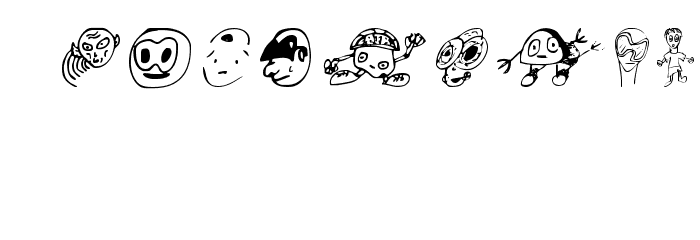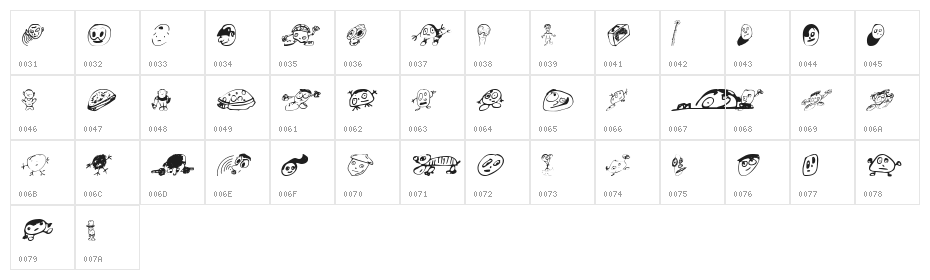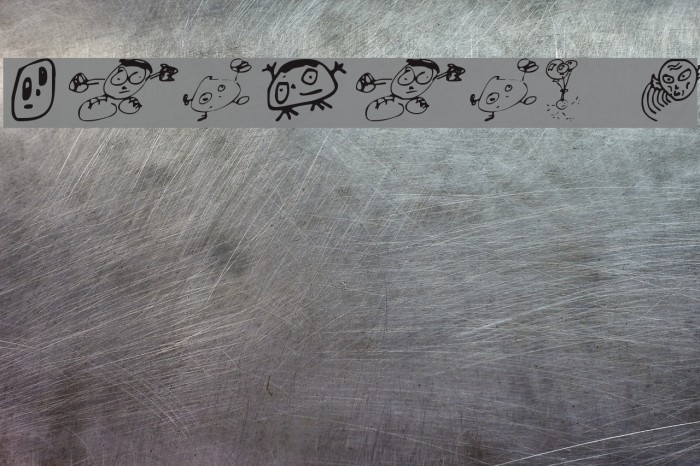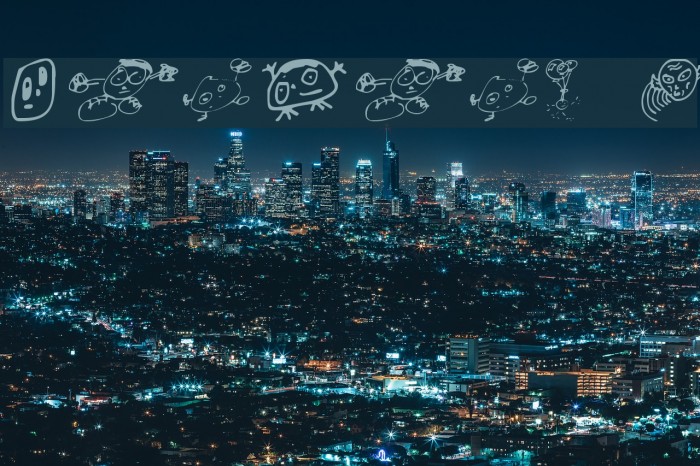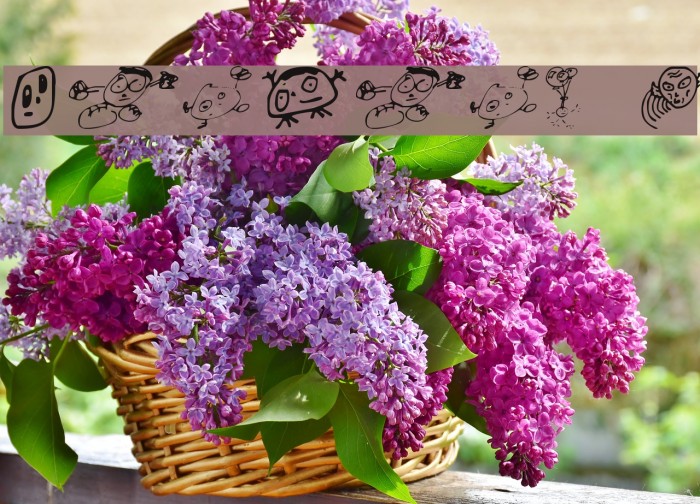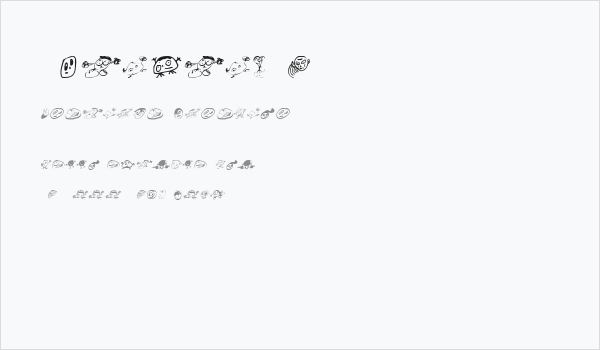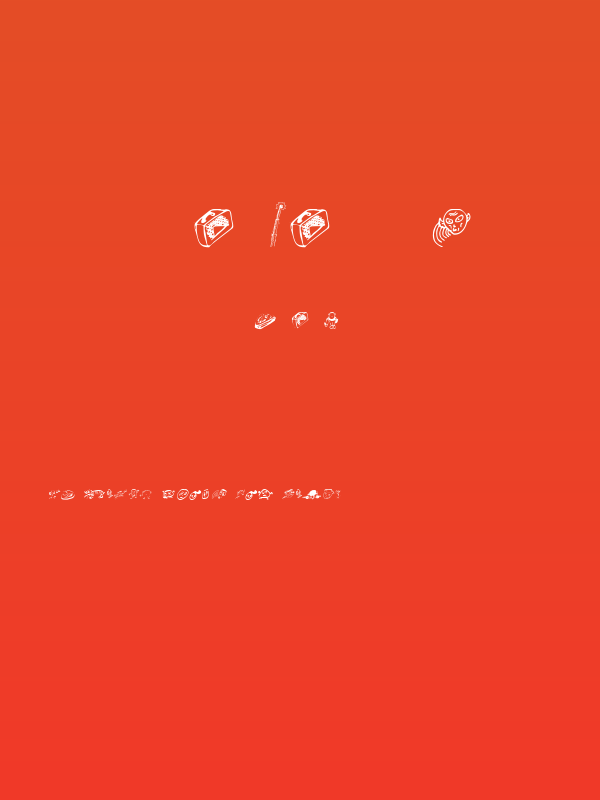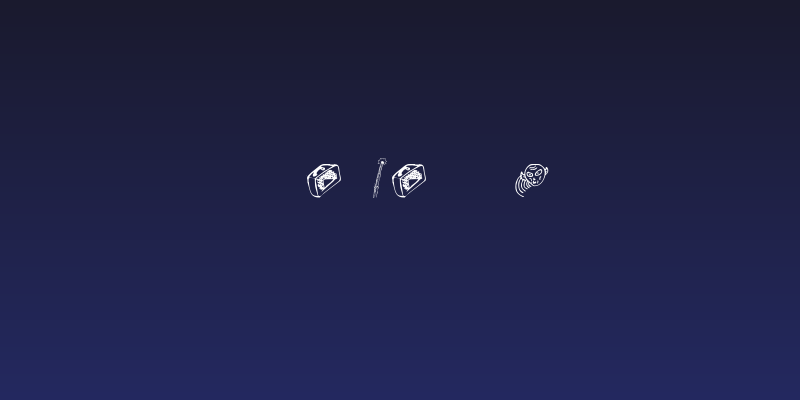
Swatbats 1 Font
Swatbats 1 Description
This set features a collection of whimsical and playful doodles, each character exuding a unique personality. The designs are cartoonish and abstract, with a mix of simple lines and bold shapes. The characters range from quirky faces to imaginative creatures, each with exaggerated features and expressions. The style is reminiscent of hand-drawn sketches, giving it a raw and organic feel. The overall appearance is light-hearted and humorous, making it suitable for creative and informal projects. The characters are diverse, with some appearing as standalone figures while others interact with imaginary objects.
| Use Case | Illustrations, Creative projects, Informal designs |
| Proposed Projects | Ideal for children's books, playful branding, creative posters, and informal digital content. |